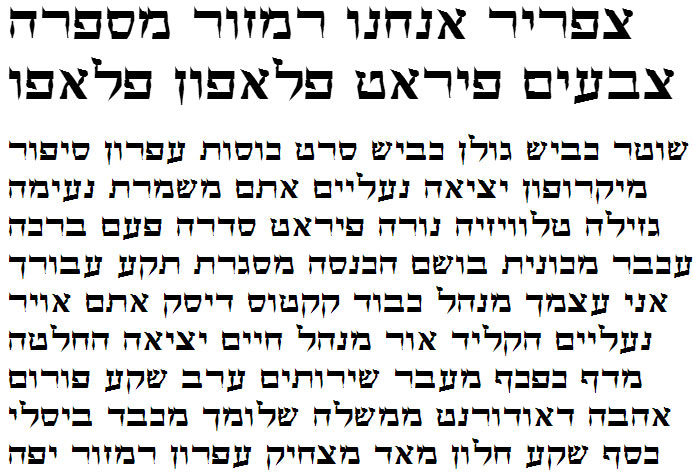
✓ I tried to assemble a set of letters from several arbitrary shapes that I've defined in advance. The result is extremely plastic and very unusual.
Mevorach Hebrew Font
โœ“ ื ื™ืกื™ืชื™ ืœื”ืจื›ื™ื‘ ืกื˜ ืื•ืชื™ื•ืช ืžื›ืžื” ืฆื•ืจื•ืช ืฉืจื™ืจื•ืชื™ื•ืช ืฉื”ื’ื“ืจืชื™ ืžืจืืฉ. ื”ืชื•ืฆืื” ืคืœืกื˜ื™ืช ื‘ืžื™ื•ื—ื“ ื•ืžืื•ื“ ื™ื•ืฆืืช ื“ื•ืคืŸ.